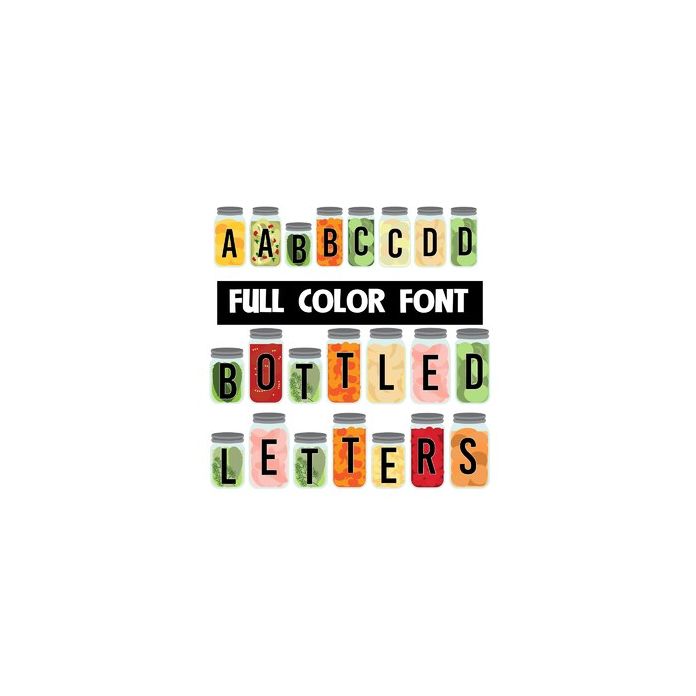
This full-color font features jars of canned food with lettering on top. This font works best for titles, displays, posters and more. Please note color fonts will show as black in non compatible programs. This font type is compatible with Silhouette Studio.